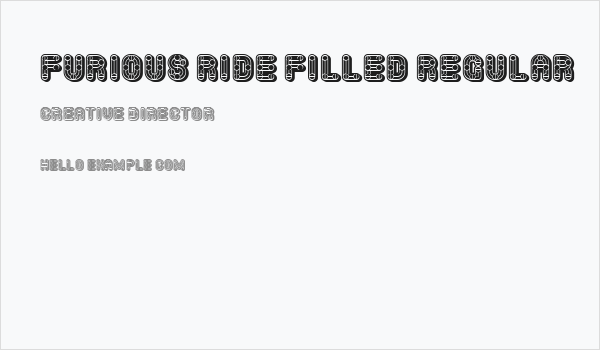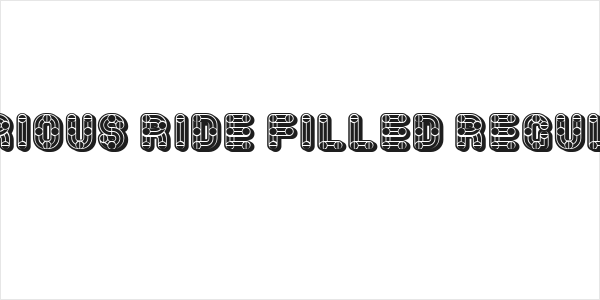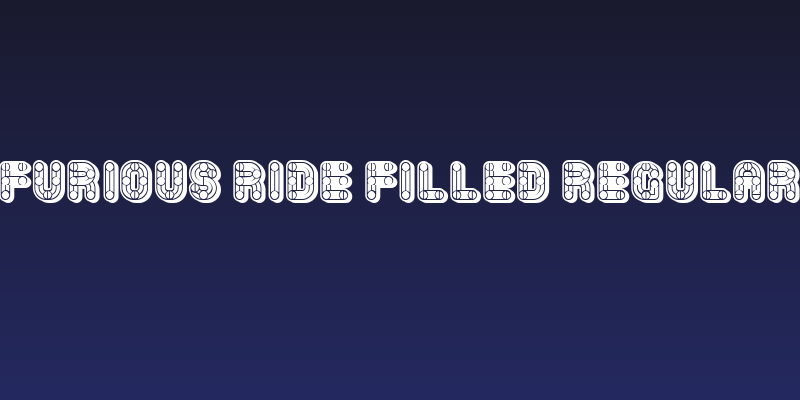
Furious Ride Filled Regular Font
Furious Ride Filled Regular Description
This font features a bold and dynamic design with a filled, geometric style. Each letter is constructed with a series of interconnected lines and shapes, creating a sense of movement and energy. The thick strokes and rounded edges give it a playful yet robust appearance, making it stand out in any design. The font's unique structure is reminiscent of a maze or circuit board, adding a modern and technological feel. Its high contrast and bold presence make it ideal for eye-catching headlines and creative projects.
| Proposed Projects | Ideal for tech-themed posters, modern branding, and eye-catching headlines. |